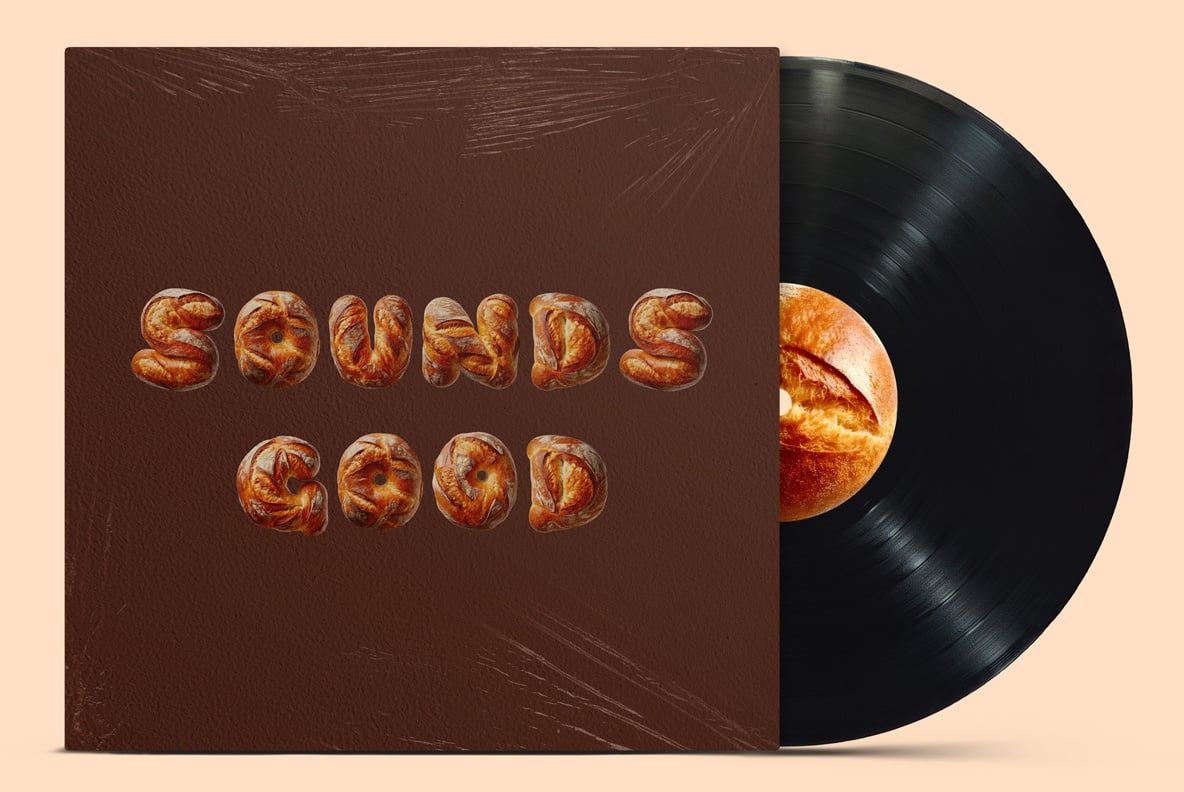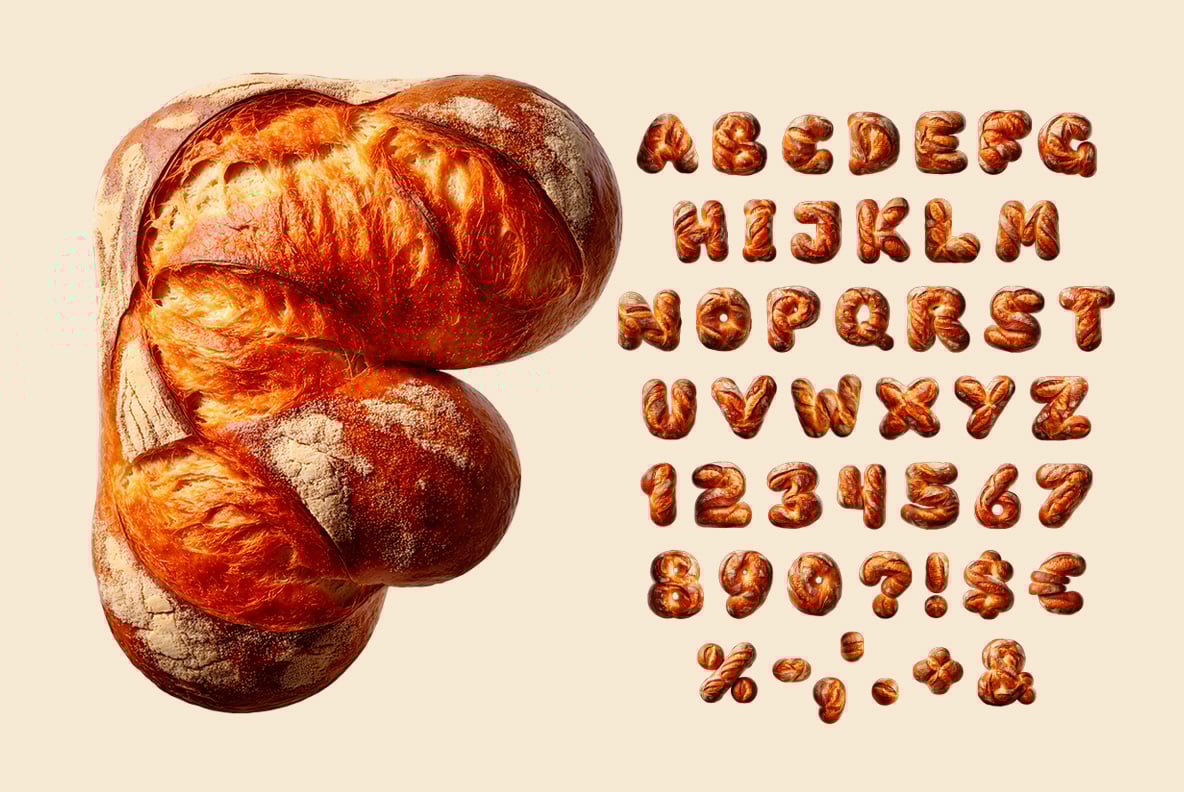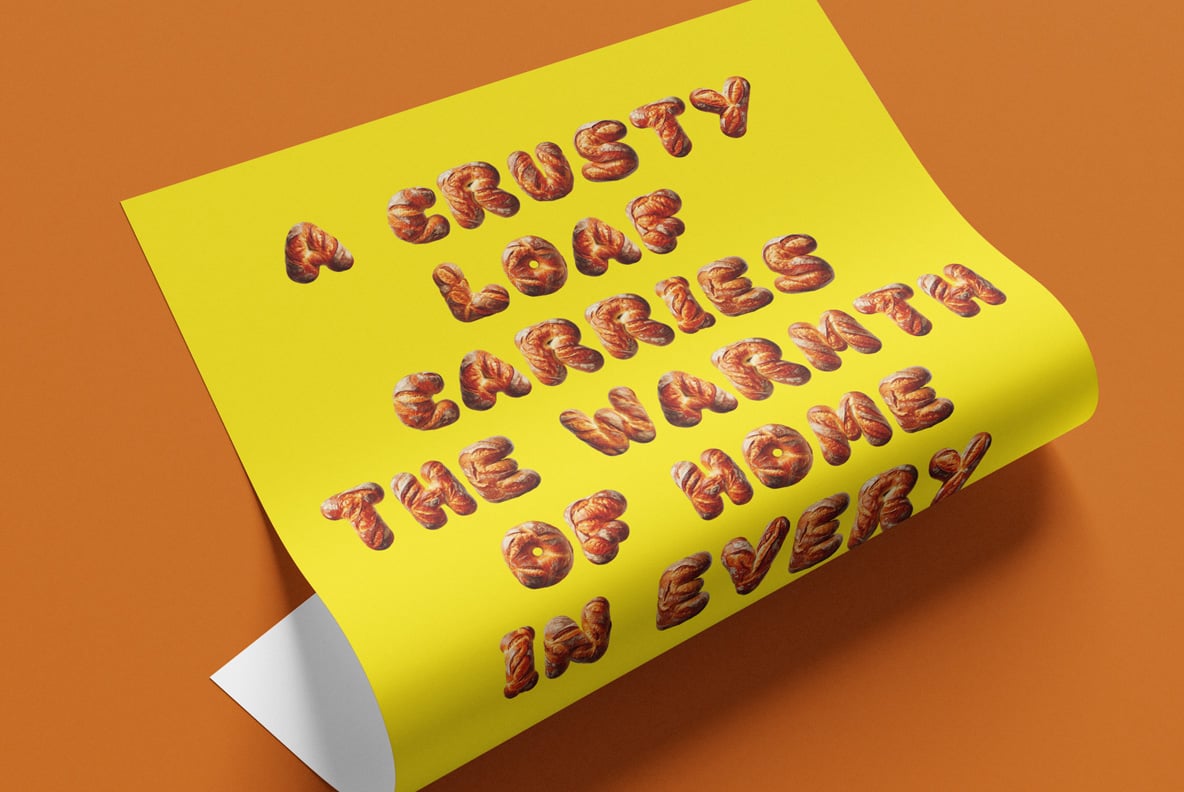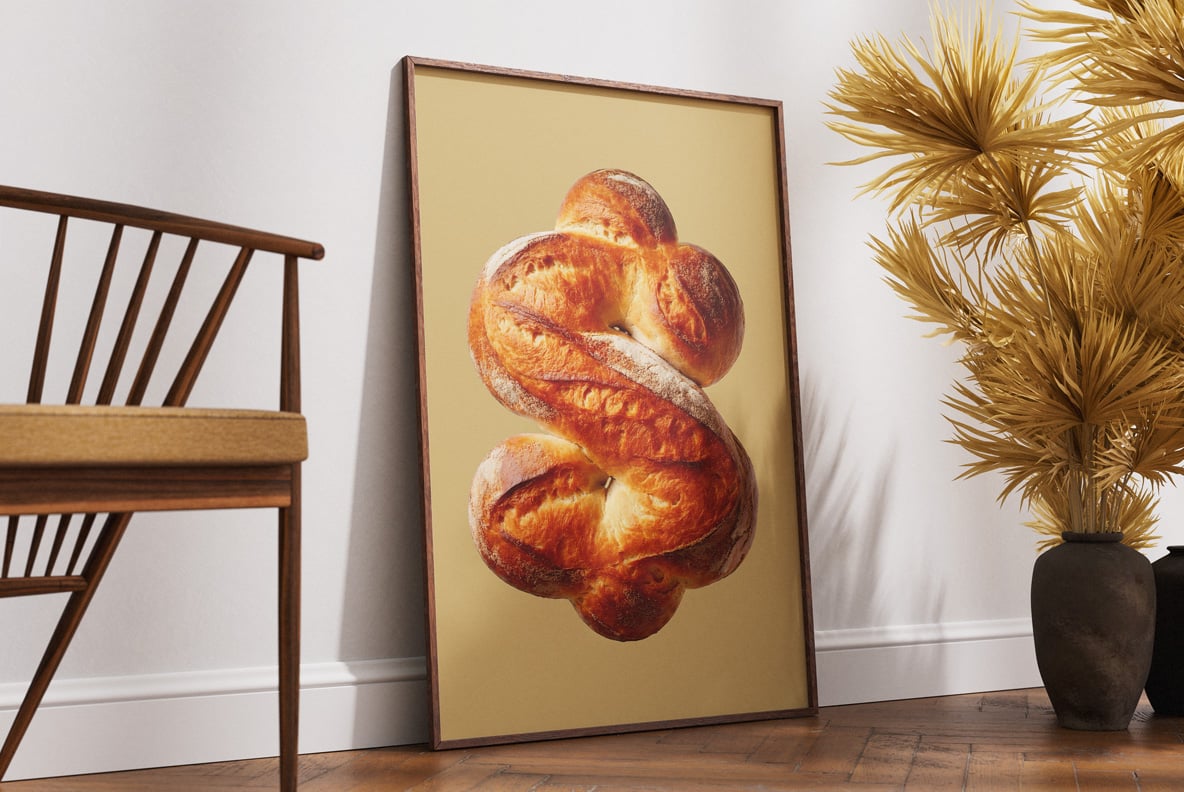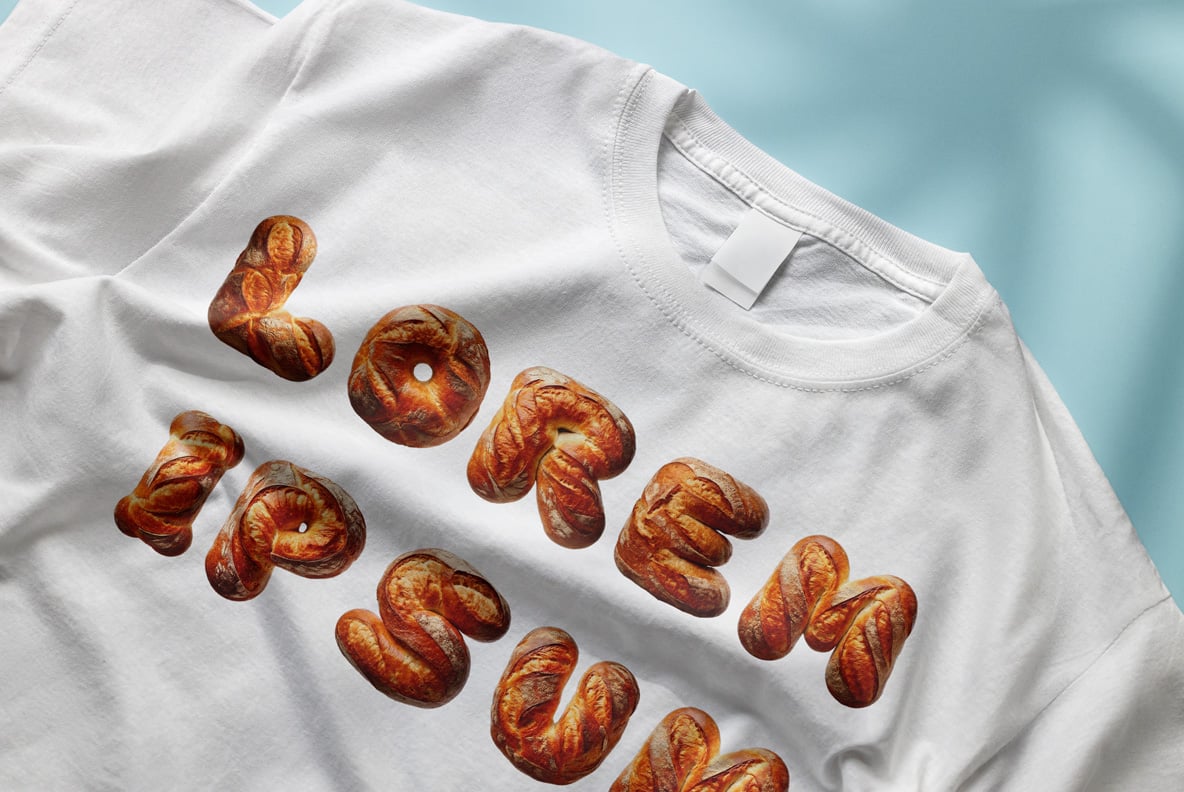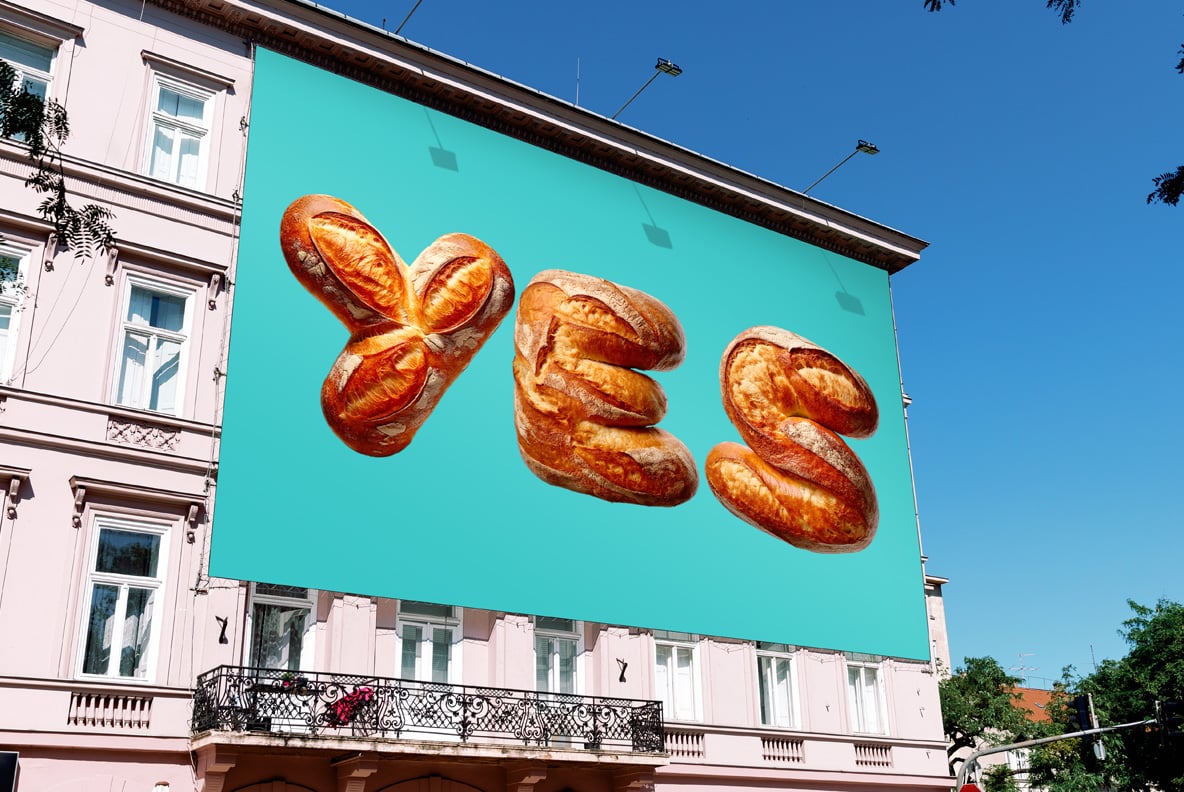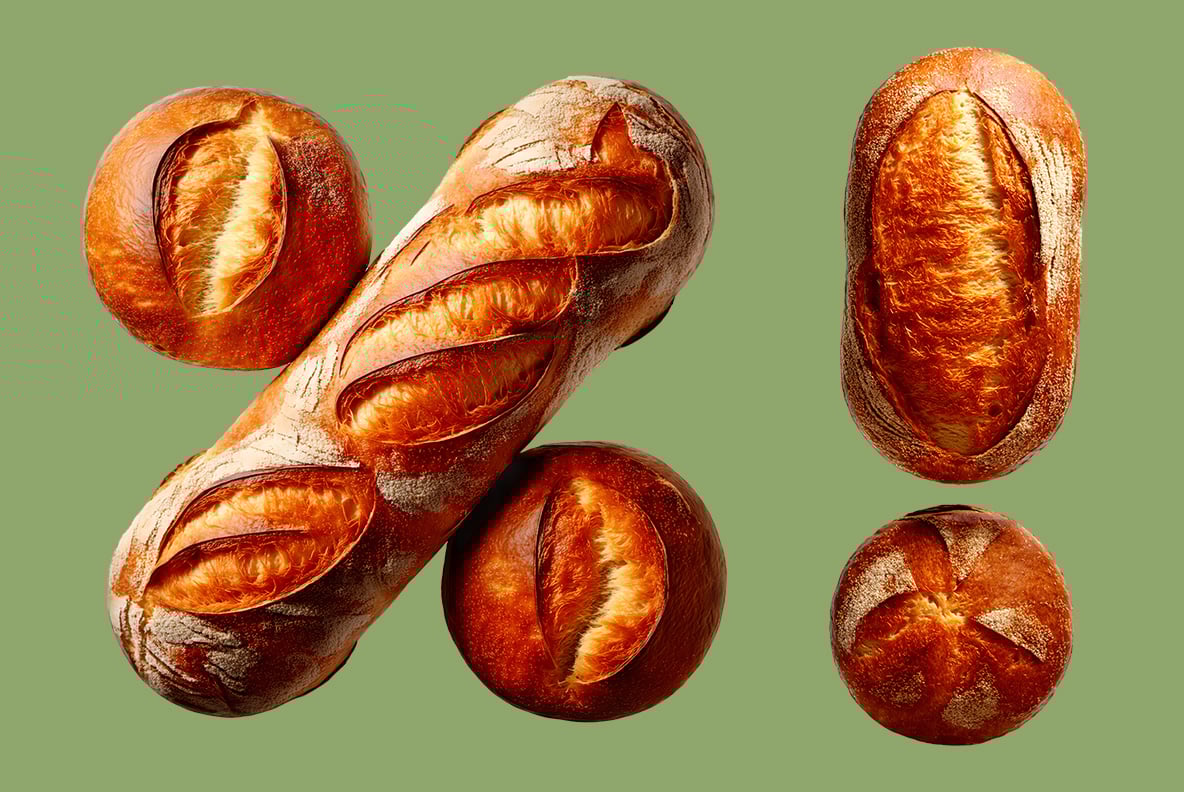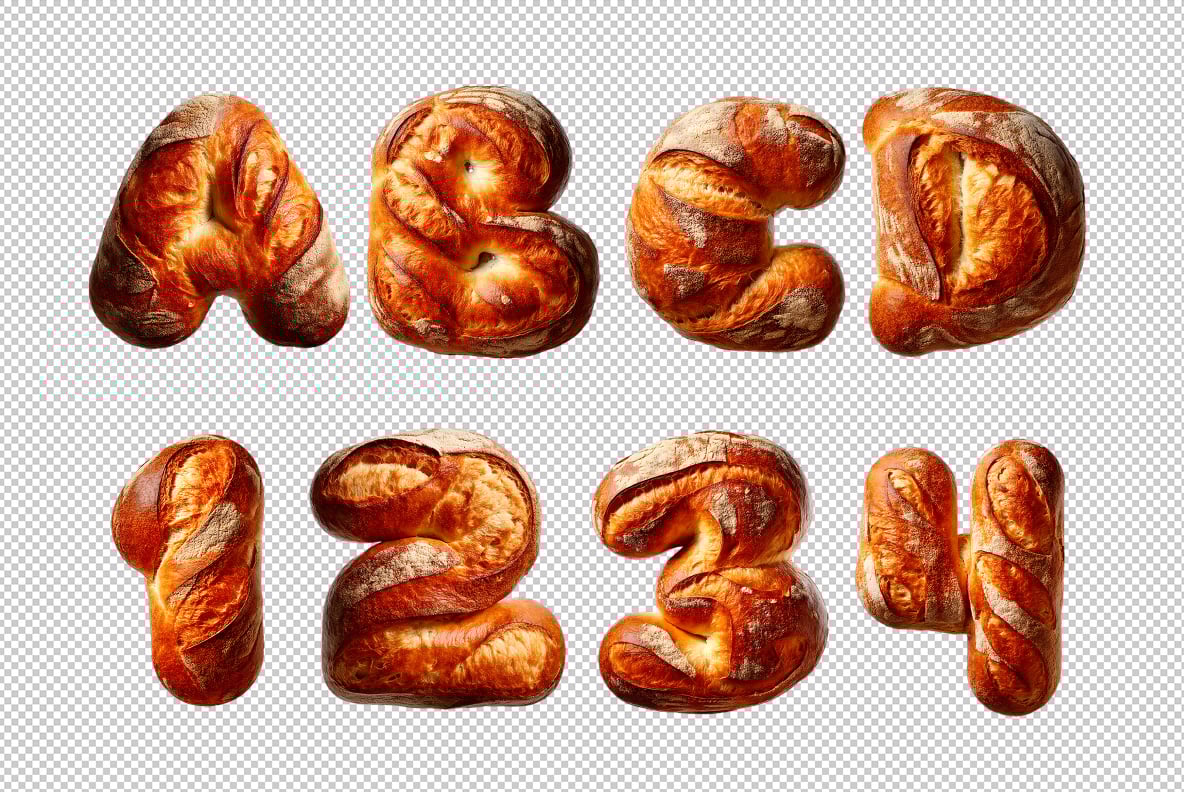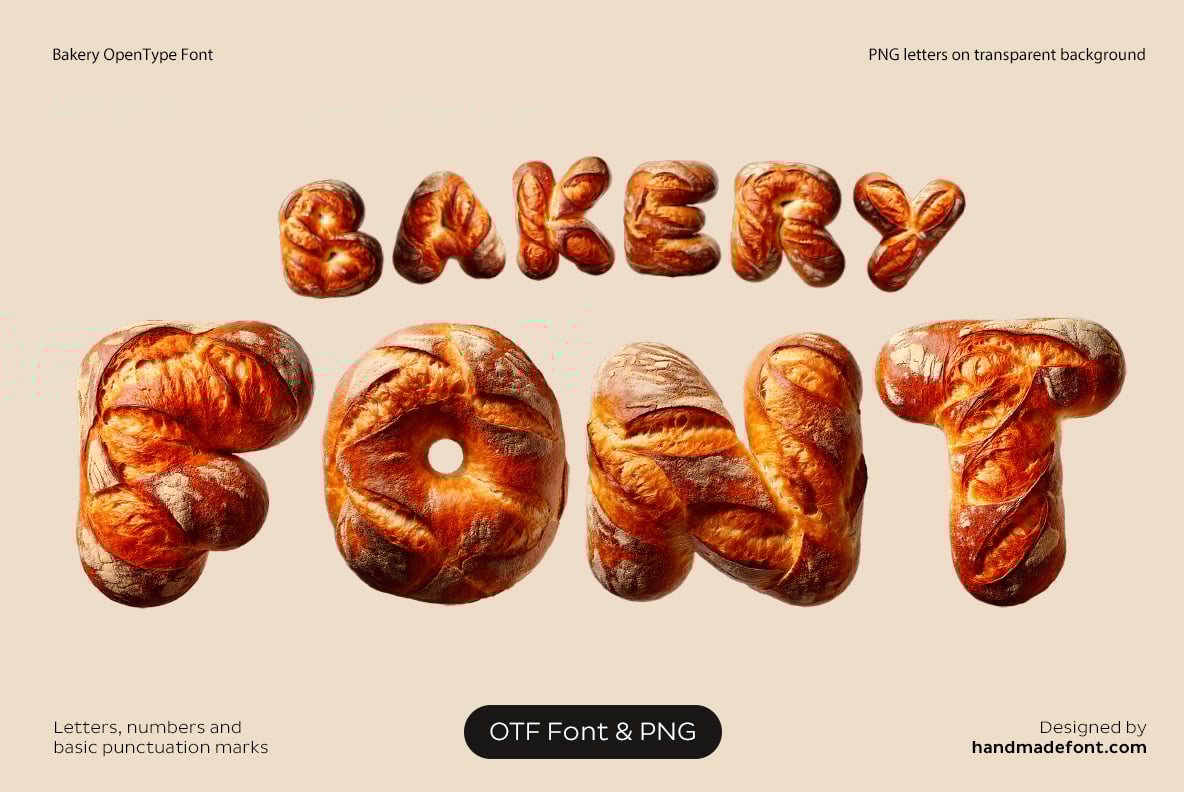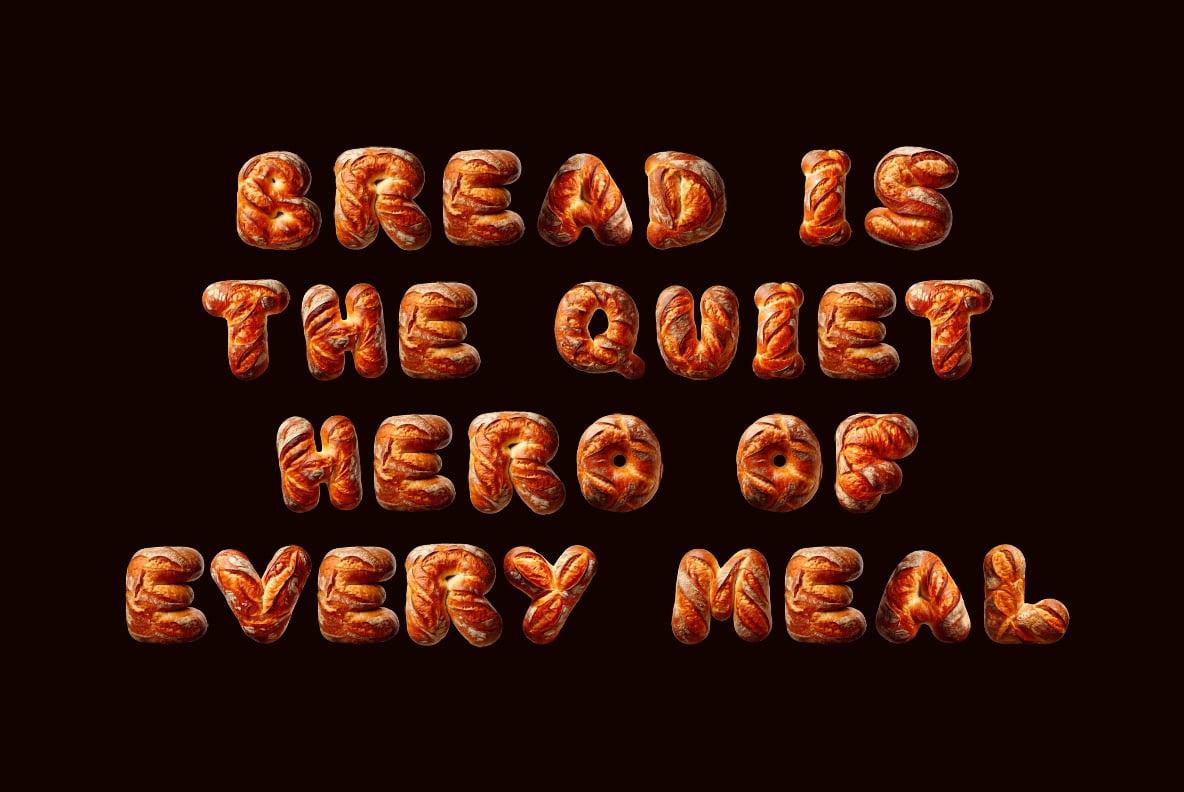
Bakery Font
Bakery Font is a deliciously creative alphabet where each letter is crafted to look like a soft, golden bread loaf. Perfectly baked and full of charm, this bread-inspired font brings warmth and whimsy to any design. Ideal for bakery branding, food blogs, playful posters, or anything that needs a touch of cozy, carb-filled delight. From fluffy buns to crusty loaf-shaped letters, Bakery Font is a tasty way to spell out your creativity. Perfect for adding flavor to your projects!
A high definition OpenType Font. Contains uppercase characters, numerals and basic punctuation. (Draw height roughly 800 pixels). All letters and glyphs that comprises this font you can see on the preview.
Others : ! ? - . ' $ € % &